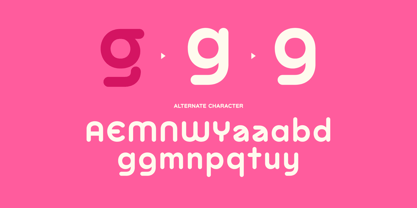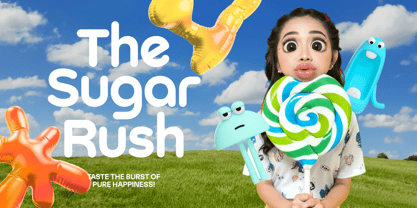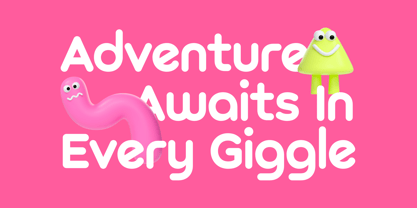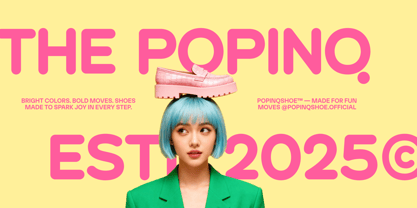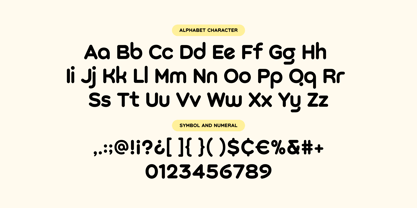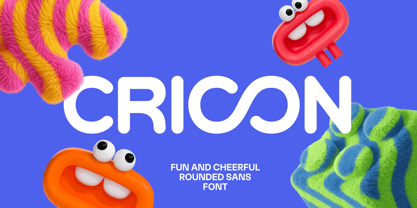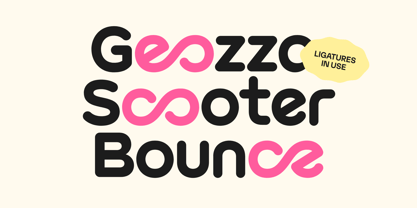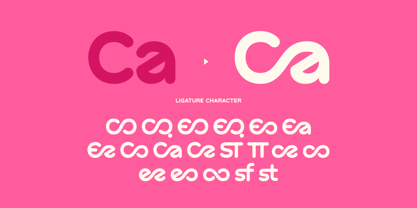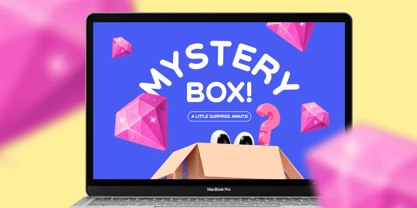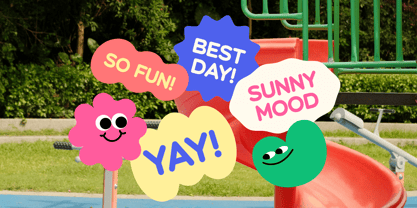
Cricon
Die Schriftfamilie Cricon wurde von Endra Kurnia Aziz entworfen und von Matsero veröffentlicht. Cricon enthält 1 Stile. Mehr über diese Familie
Cricon is a bold rounded display font crafted with soft, blobby curves and a friendly modern feel. Designed to make your text look fun, eye-catching, and approachable, Cricon is perfect for logos, posters, headlines, social media graphics, kids content, packaging, and branding projects. With its smooth rounded shapes, clean geometry, and strong presence, Cricon adds personality while staying readable. The font includes ligatures, symbols, numerals, and multilingual support to help your designs stand out effortlessly.